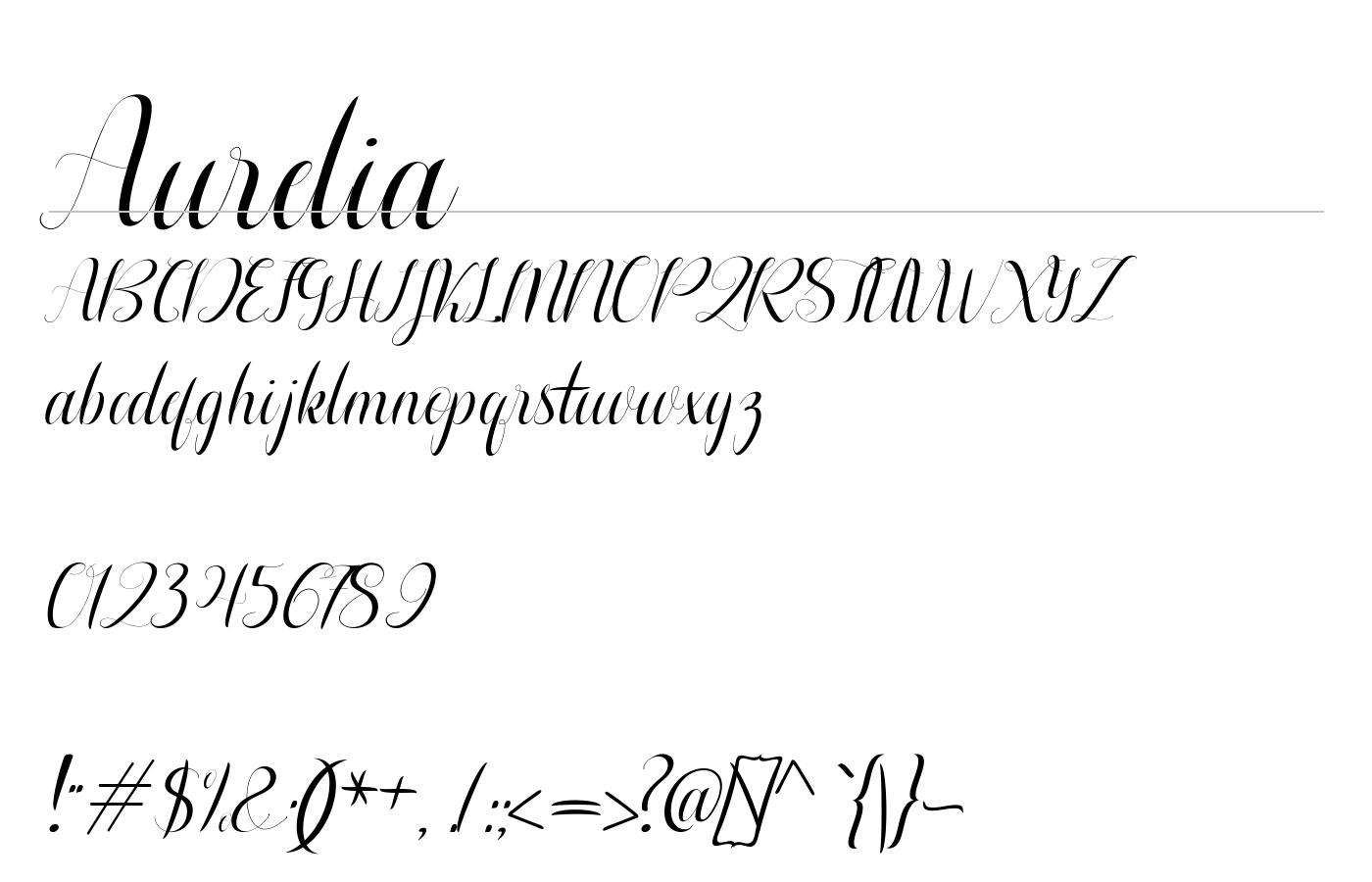
Aurelia is an elegant and sophisticated script font with a graceful, flowing style that combines thin, high-contrast strokes with delicate swirls and flourishes. Its refined, calligraphic letterforms evoke a sense of luxury and beauty, making it ideal for upscale branding, wedding invitations, and fashion editorial use. This font works best in prominent display roles where its artistic details can shine, adding a touch of class and refinement.